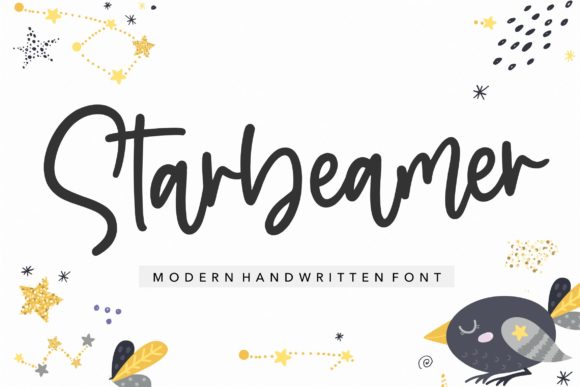
Introducing Starbeamer Font, the celestial script designed to illuminate your designs and captivate your audience.
Unleash the enchantment of Starbeamer Font, a meticulously crafted handwritten font that weaves a tapestry of playful charm and elegant allure. Its ethereal strokes evoke the twinkling of distant stars, adding a touch of cosmic artistry to your every creation.
With Starbeamer Font, your designs will soar to new heights. Its friendly demeanor shines effortlessly on any canvas, whether you're crafting dazzling logos, enchanting posters, or heartwarming social media graphics. Imagine your words dancing across the page, imbued with an otherworldly grace that will leave an unforgettable impression.
But Starbeamer Font is not just a font; it's an invitation to unleash your imagination. Let its unique and quirky curves ignite your creativity, inspiring you to create designs that shimmer with originality. Whether you're an aspiring artist, a seasoned designer, or simply seeking a touch of stardust for your projects, Starbeamer Font will guide you on an extraordinary journey of artistic expression.
With every stroke of Starbeamer Font, you'll feel the boundless possibilities of creation unfold before you. Let your designs shine with the radiant brilliance of a thousand stars, captivating the hearts of all who behold them.